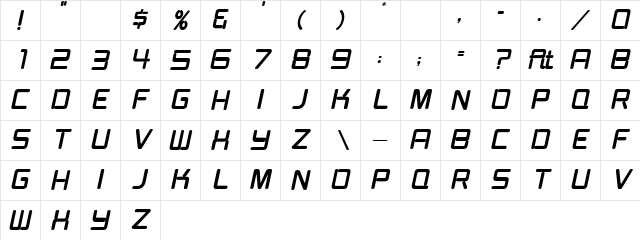
Burger Joint Neon Italic JL has a distinctly futuristic character, with geometric precision and clean angles that feel at home in technology, gaming, and sci-fi contexts. The slanted form adds forward momentum and visual energy.
Pro Tip: Try Burger Joint Neon Italic JL with generous letter-spacing in UI labels and navigation - the geometric forms benefit from room to breathe.